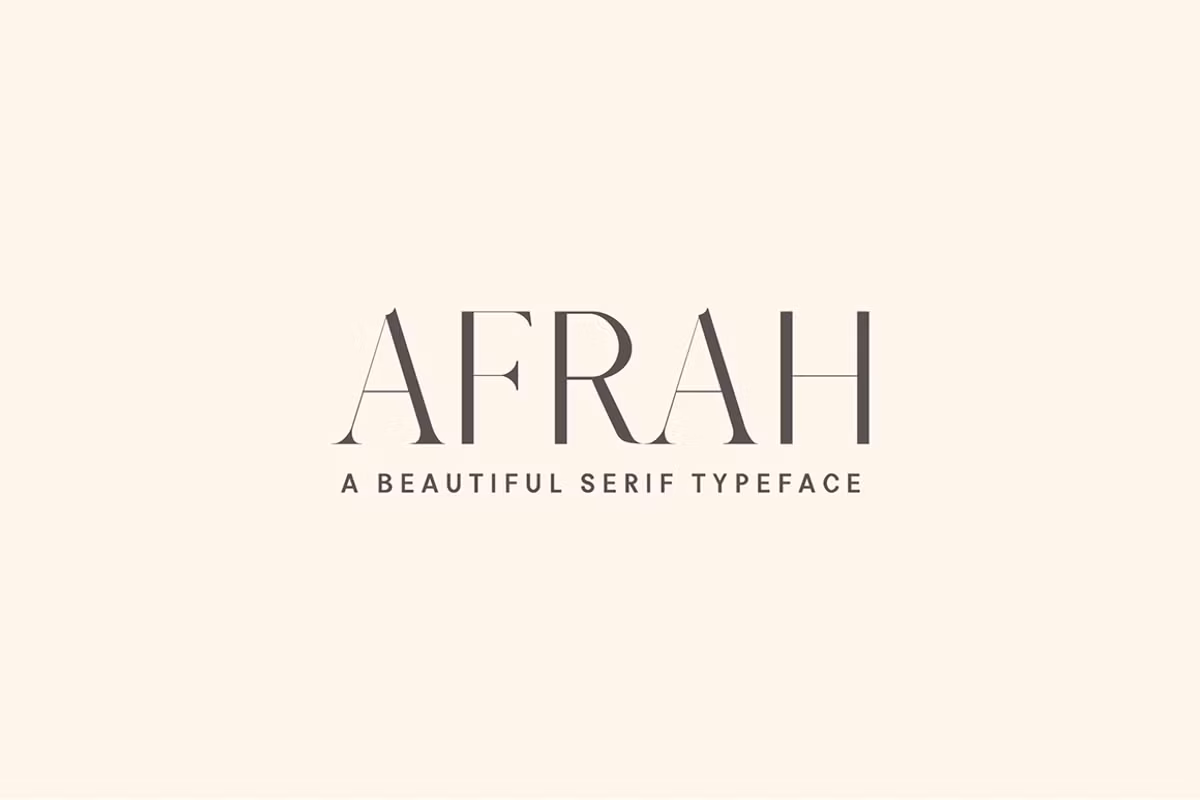
Afrah Serif Font Family Pack Free Download is a versatile and elegant serif typeface family that combines timeless classic appeal with modern style. Featuring multiple weights and styles, this font family is perfect for editorial design, branding, headlines, logos, and high-end print materials. The sharp serifs, balanced proportions, and clean lines provide a sophisticated and professional feel.
The Afrah Serif Font Family Pack Free Download includes regular, bold, and italicized weights, giving you the flexibility to use it in various design contexts—whether for body text or standout titles.